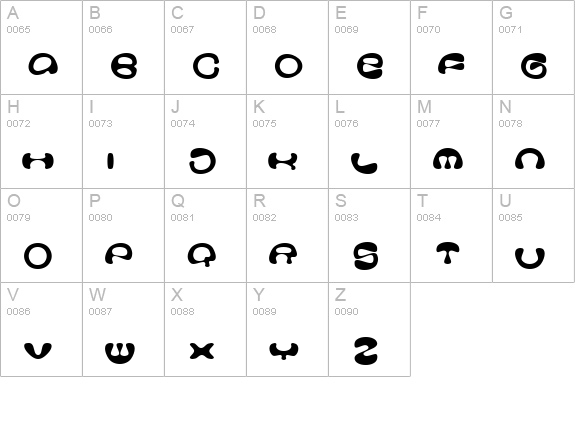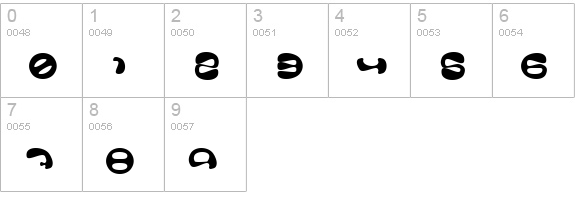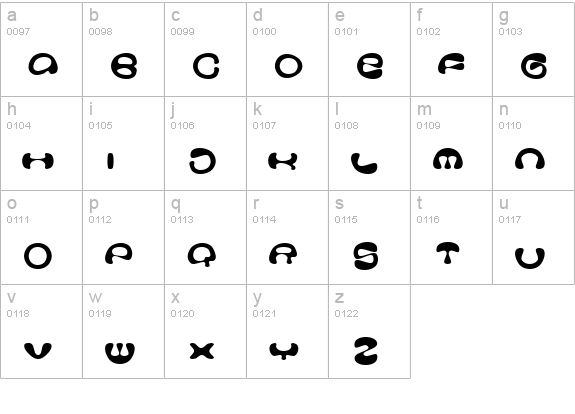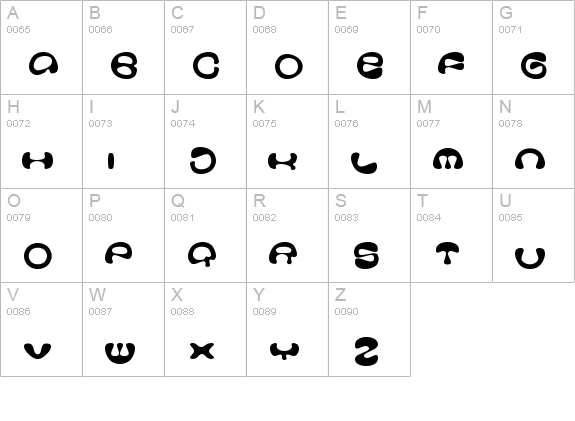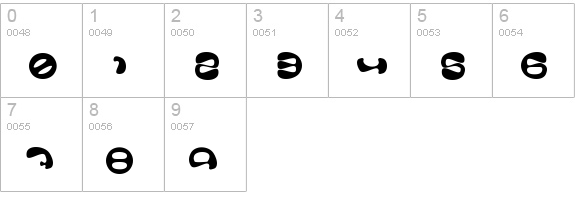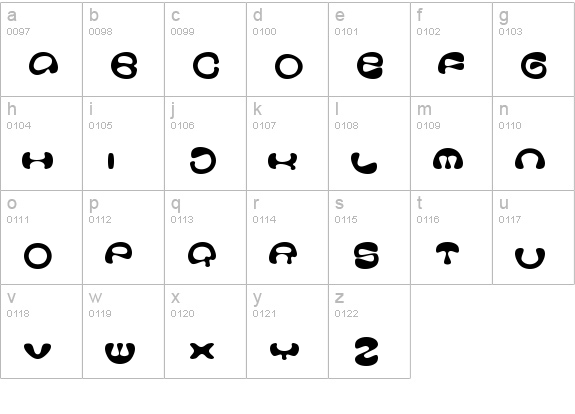
Stoopid font is a fun and quirky typeface that adds a playful touch to any design project. This unique font features irregular shapes and uneven lines, giving it a hand-drawn and whimsical appearance. Perfect for creating eye-catching headlines, posters, greeting cards, and more, Stoopid font is sure to make your text stand out. Best of all, Stoopid font is available for free download at FontsMarket.com. Whether you're a professional designer looking to add a touch of whimsy to your projects or a hobbyist in need of a creative font for personal use, Stoopid font is a fantastic choice. Download it today and let your creativity run wild with this charming and free typeface.